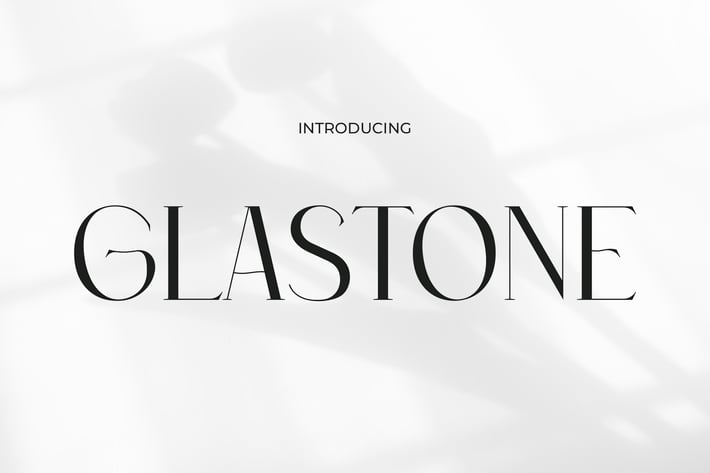
Glaston - Modern Elegance and Beauty Font
Glaston - Modern Classic Elegance
Crafted for high-end branding and modern editorial layouts, GLASTONE blends high-contrast elegance with sharply defined terminals and geometric balance. With its sophisticated and refined vibe, this typeface radiates confidence and poise—making it a natural choice for fashion campaigns, magazine spreads, and luxury product packaging. Each character boasts generous spacing and vertical elegance, giving your design a bold yet graceful presence.
Whether you're building a high-fashion label identity or refining an editorial layout, GLASTONE delivers both visual impact and refined clarity. It captures a luxurious, confident tone perfect for upscale lookbooks, stylish product catalogs, minimalist packaging, and bold web banners. Let your typography speak elegance before the words even begin.
Key Features
Bold Presence, Clean Geometry
• Striking high-contrast letterforms with sleek vertical rhythm
• Modern editorial feel with timeless sophistication
Built for Creative Professionals
• Ideal for fashion, beauty, luxury branding, magazines, posters, and digital editorial
• Enhances typographic hierarchy with dramatic contrast and character precision
User-Centered Design
• Clear legibility in display sizes
• Versatile across minimalist and expressive visual identities
GLASTONE isn’t just a typeface—it’s a visual voice for luxury. If you’re a designer crafting a high-fashion brand, beauty campaign, or modern editorial, GLASTONE will elevate your message with bold sophistication. Start making your mark today with the font that stands tall in clarity and elegance.